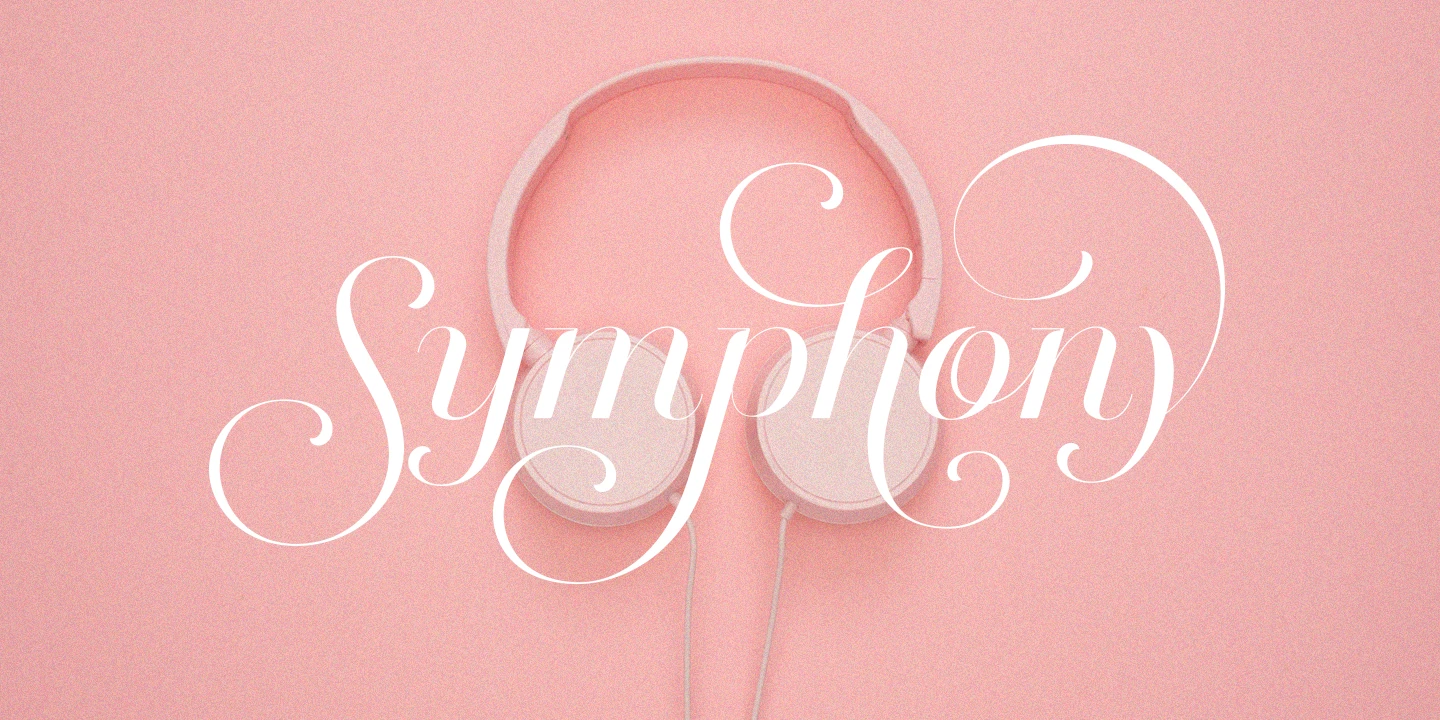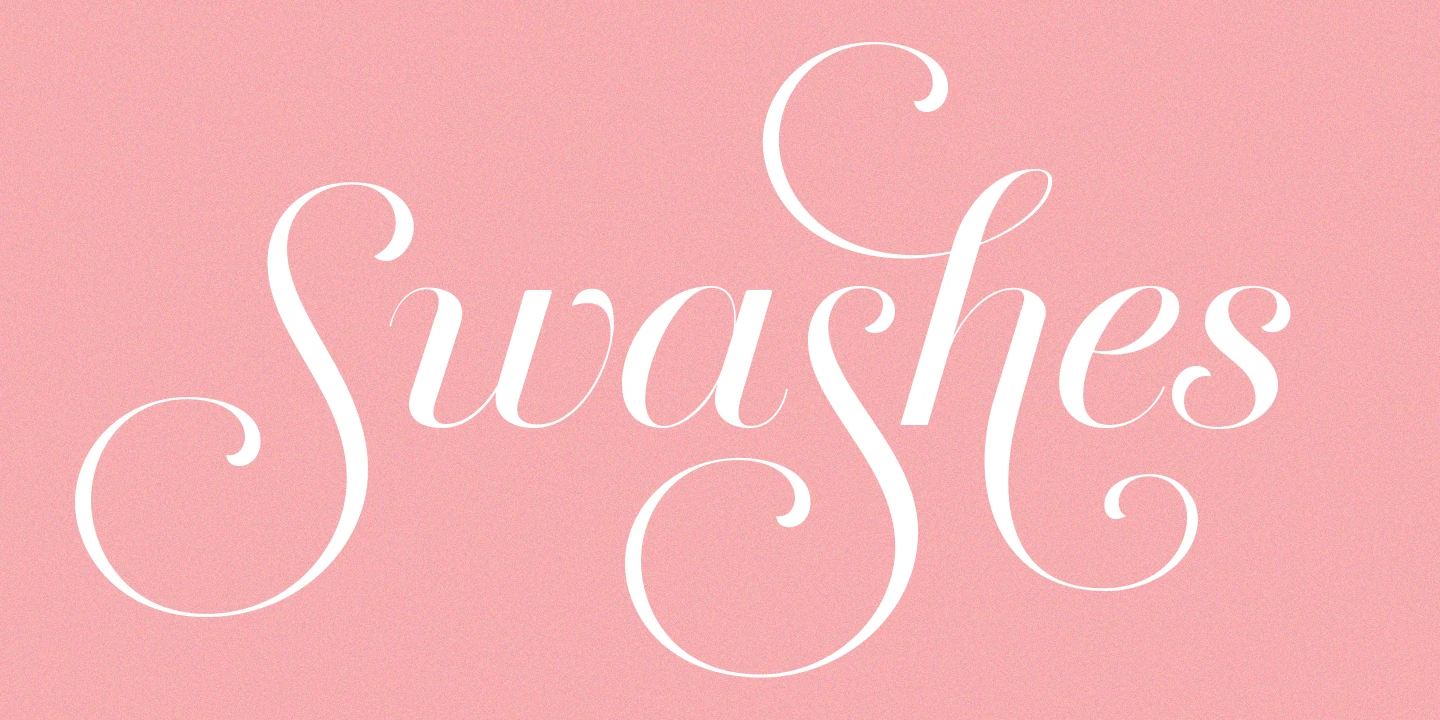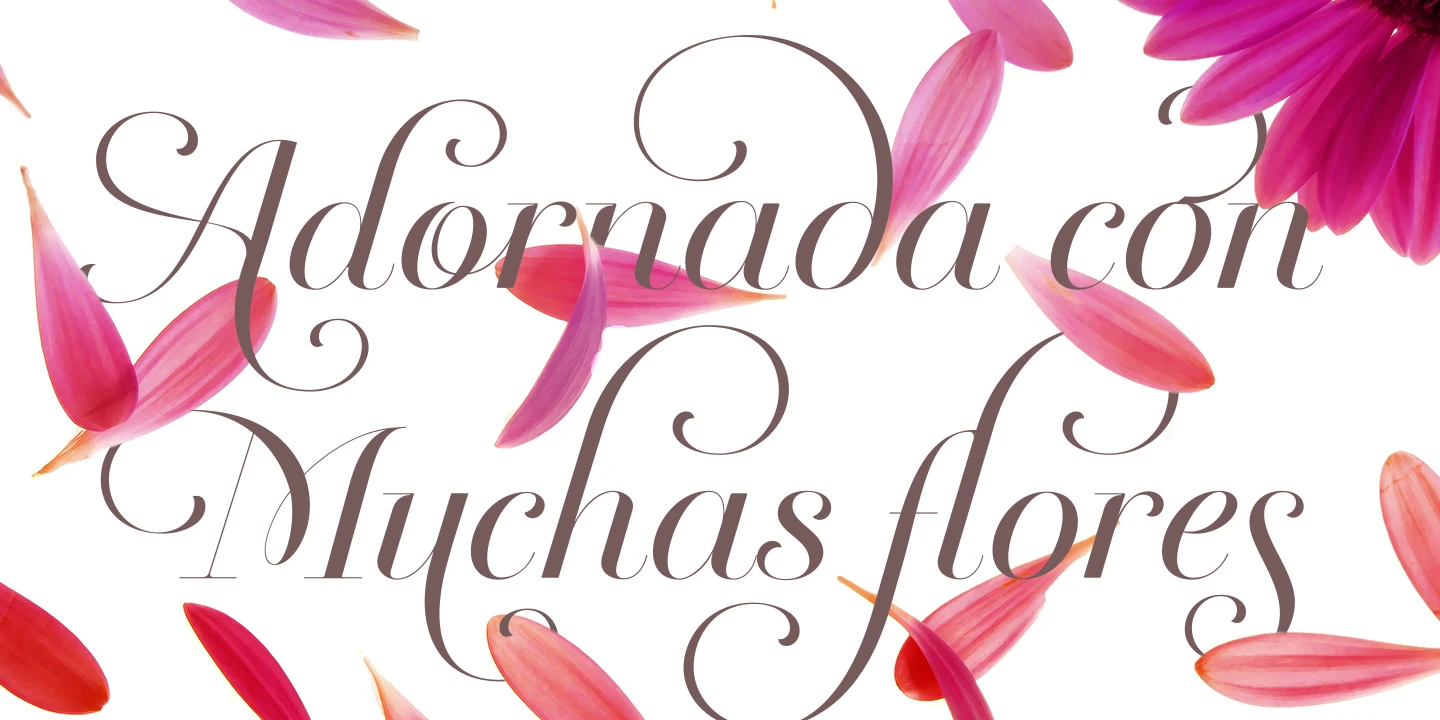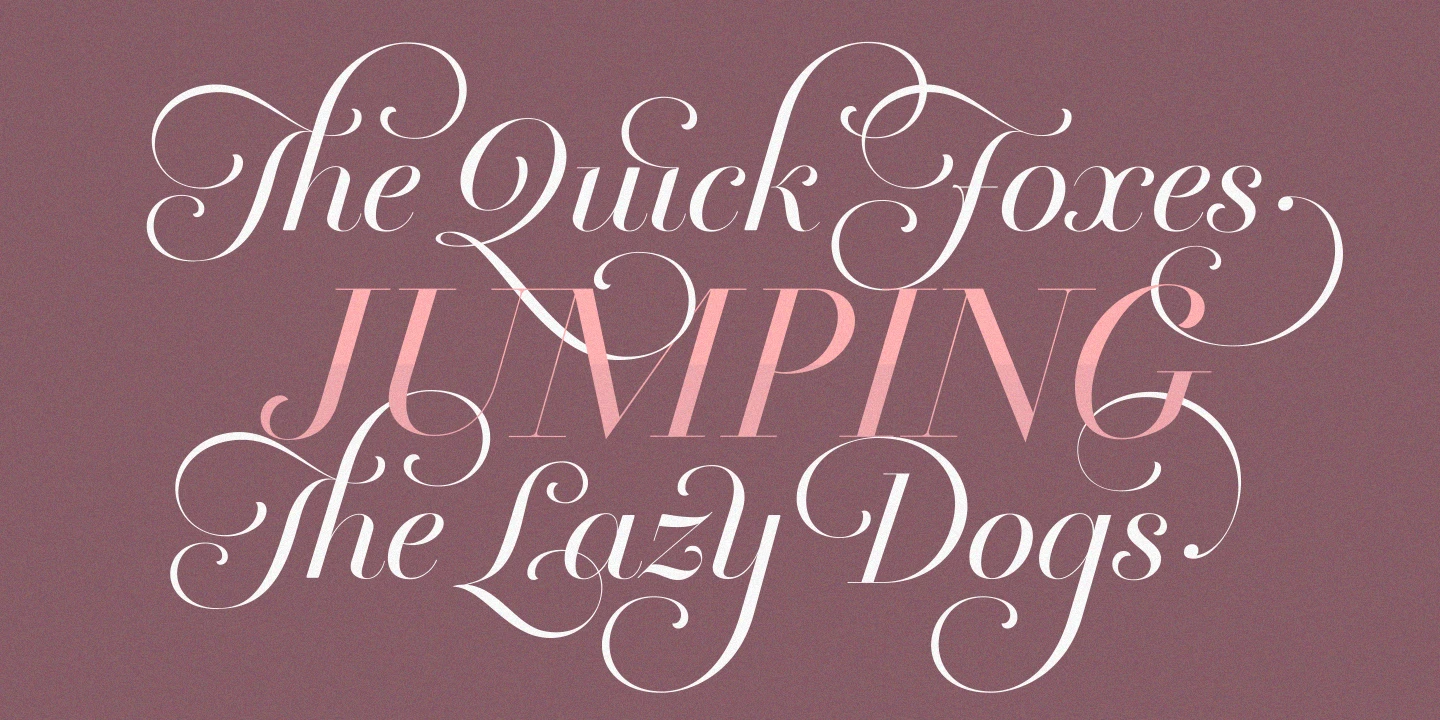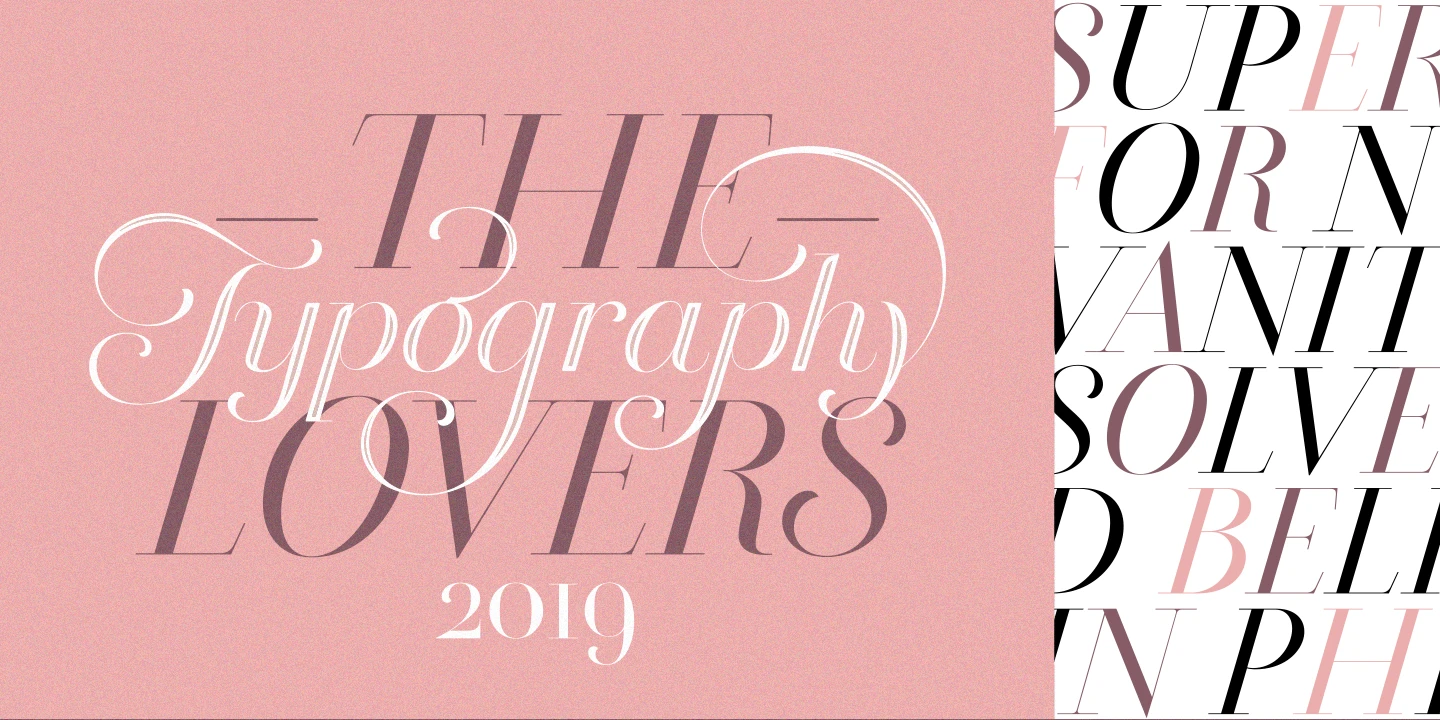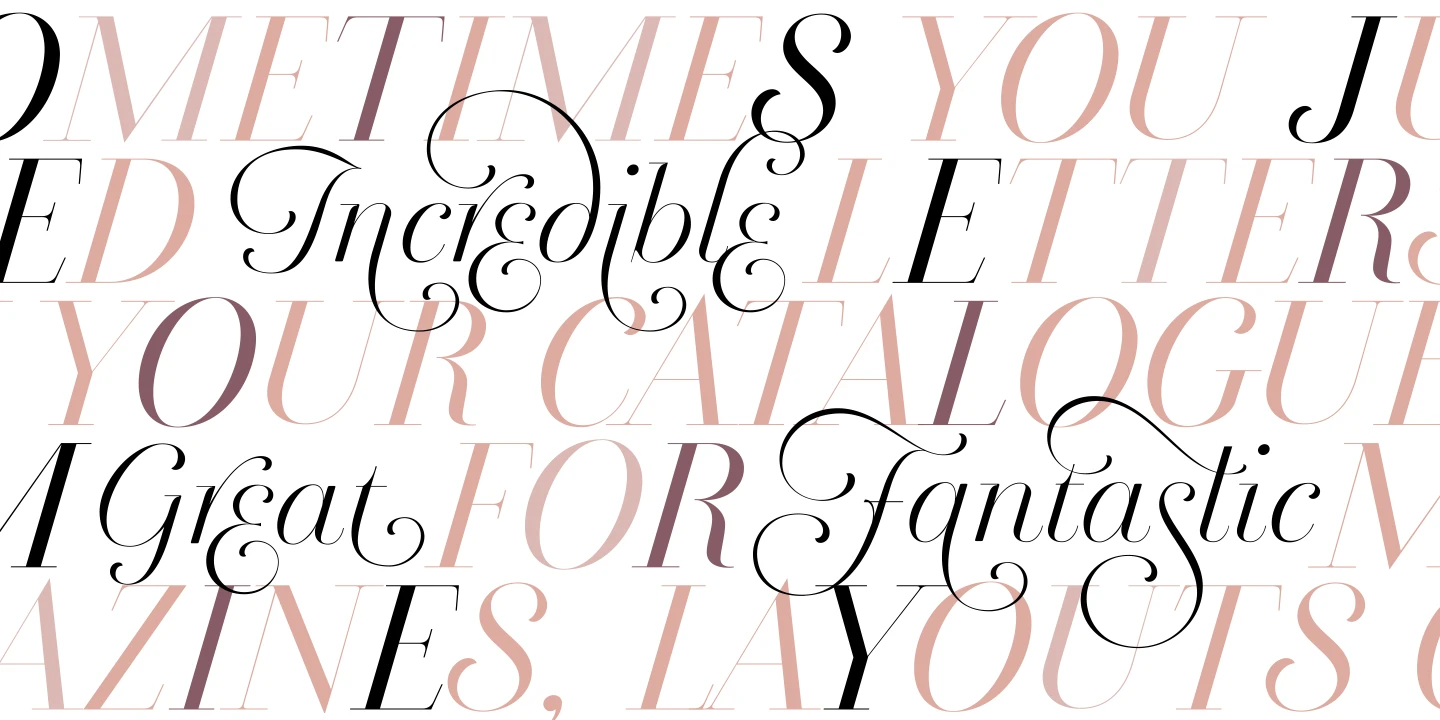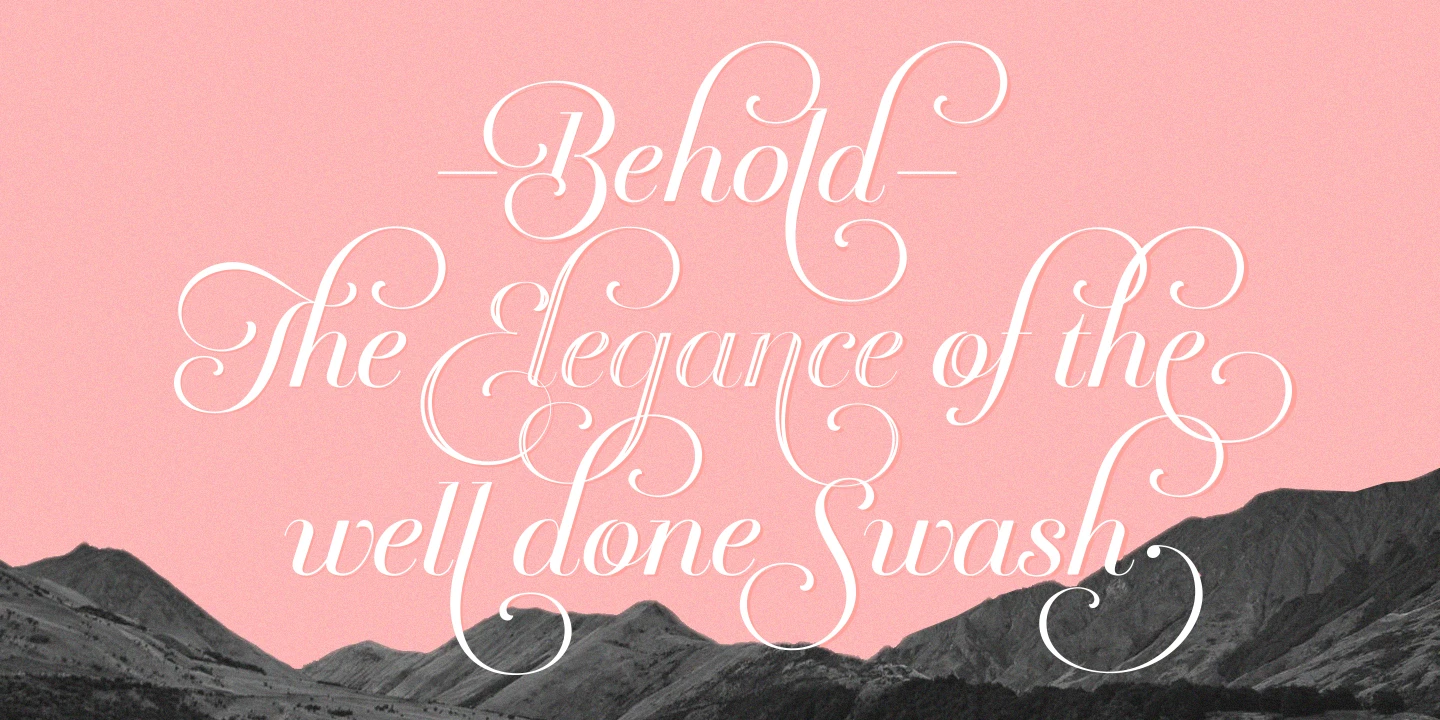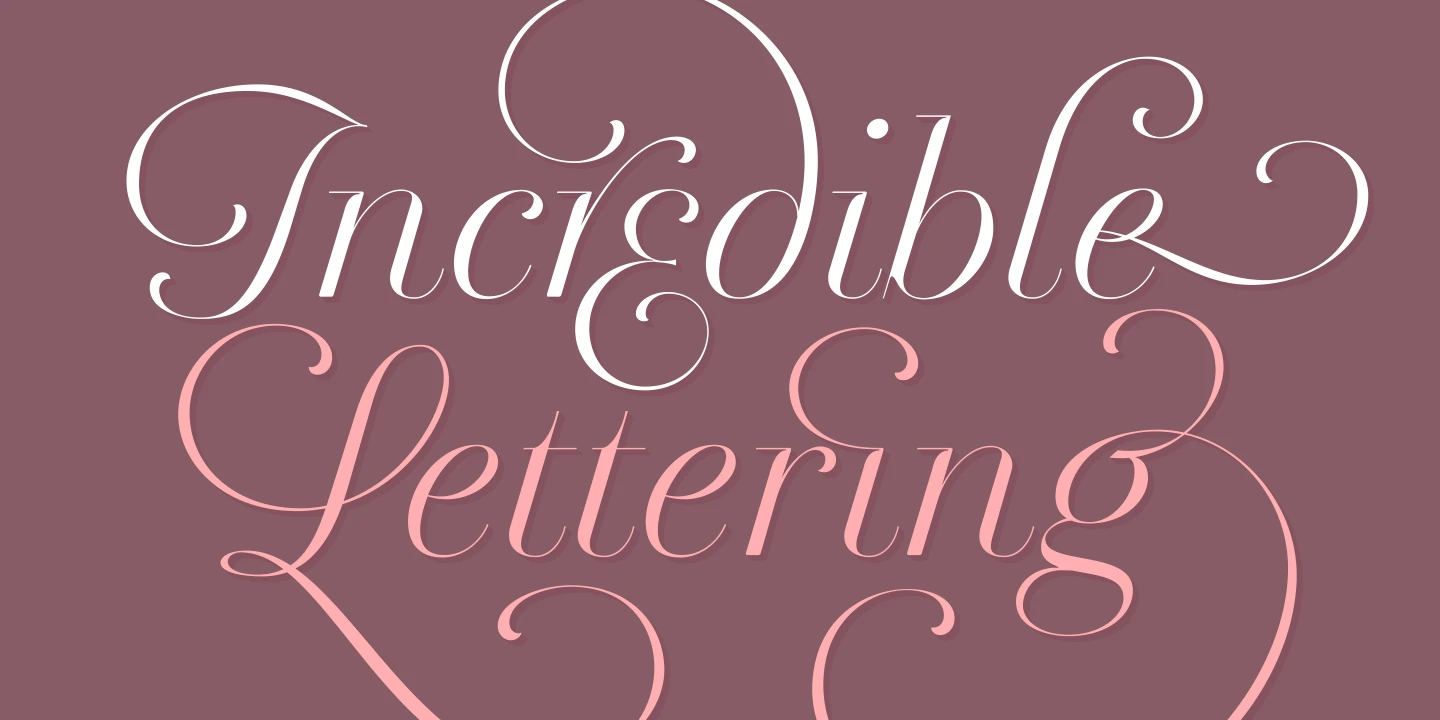
Breathe font by Sproviero Type — the word “Symphony” in an upright, high-contrast, connected script with swash capitals, overlaid on a pair of light pink headphones
Breathe font by Sproviero Type — the word “Swashes” in an italic high-contrast serif with elaborate swashes on the capital S and the final s
Breathe font by Sproviero Type — the words “Adornada con Muchas flores” in an italic high-contrast serif with swash capitals, surrounded by falling pink flower petals
Breathe font by Sproviero Type — the words “The Quick Foxes” and “The Lazy Dogs” in a white high-contrast connected script with swashes, and “JUMPING” in a pink upright high-contrast serif.
Breathe font by Sproviero Type — the words “THE TYPOGRAPHY LOVERS 2019” in a mix of upright serif and swash script, with a vertical column of words like “SUPERIOR” and “VANITY” in alternating colors and upright serif styles
Breathe font by Sproviero Type — the words “Incredible” and “Fantastic” in a black high-contrast connected script with swashes, overlaying a pattern of upright serif letters in shades of pink and purple that spell out “Sometimes you just need incredible letters for your catalogue. Great for fantastic magazines, layouts, and more.”
Breathe font by Sproviero Type — the words “Behold The Elegance of the well done Swash” in an upright high-contrast connected script with many swashes and flourishes, above a black and white mountain range
Breathe font by Sproviero Type — the words “Incredible Lettering” in two lines of high-contrast italic script with elaborate swashes and flourishes
Breathe is a swashy serif typeface answering the question, “what if the Didone style had been turned into a script?” Delighted by the typographic works of Didot and his followers at the beginning of 1800, Breathe answers this question with resounding beauty, refinement, and polish. The opportunities for extravagant visual design are limitless. Above all else, experiment with its swashes and flourishes, and watch as your words move as if they are alive.
• Common Ligatures
• Discretionary Ligatures
• Ornaments
• Stylistic Alternates
• Stylistic Sets
• Swashes
• Titling Capitals